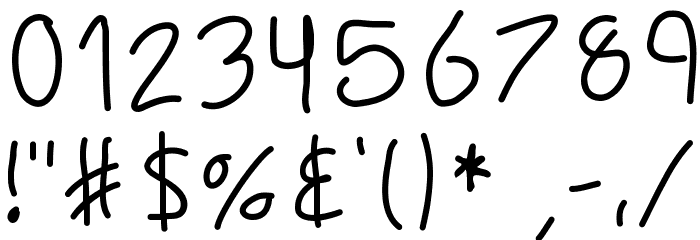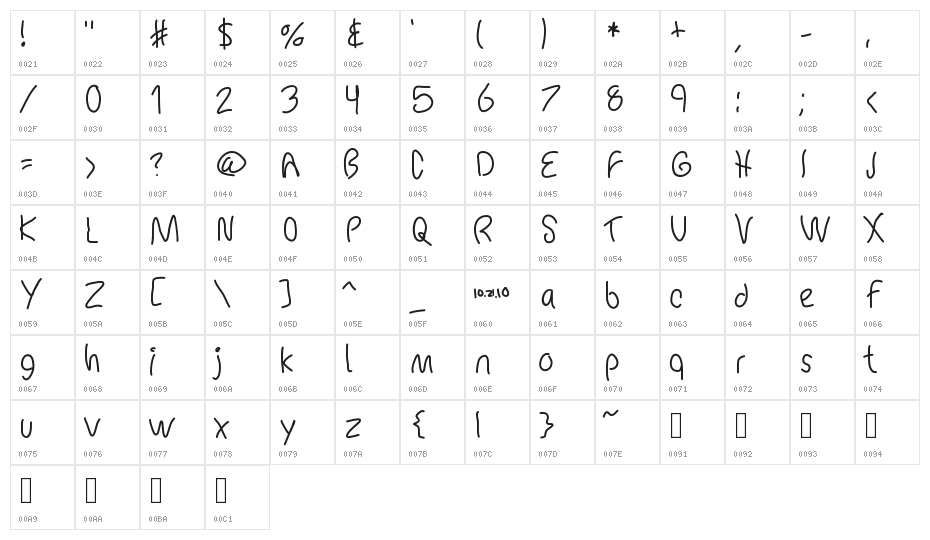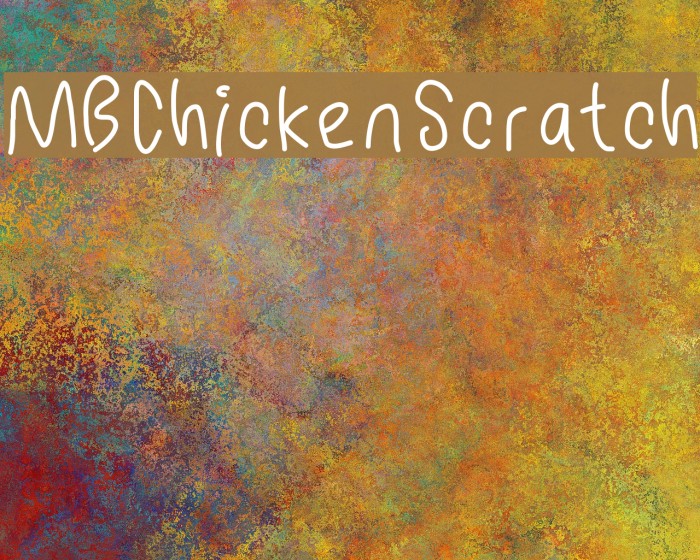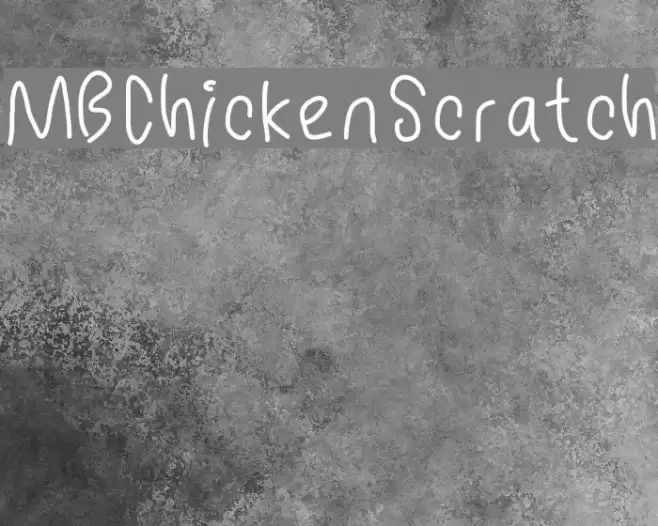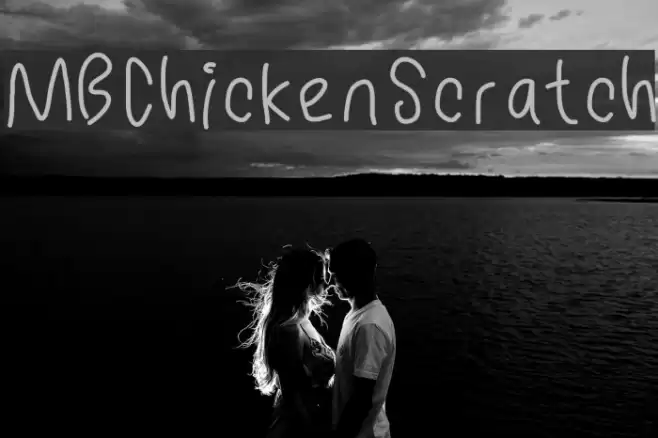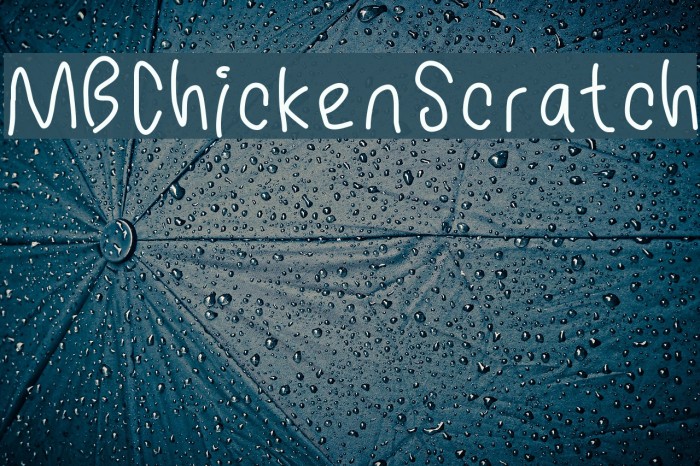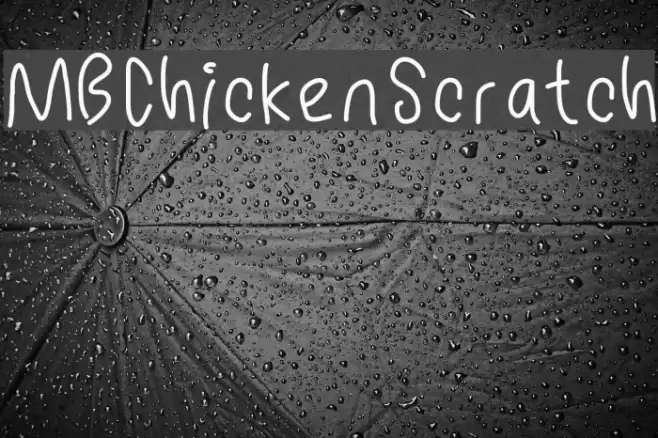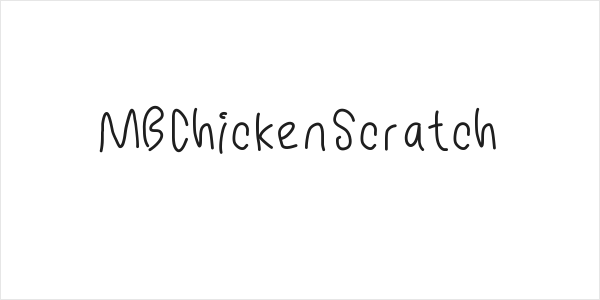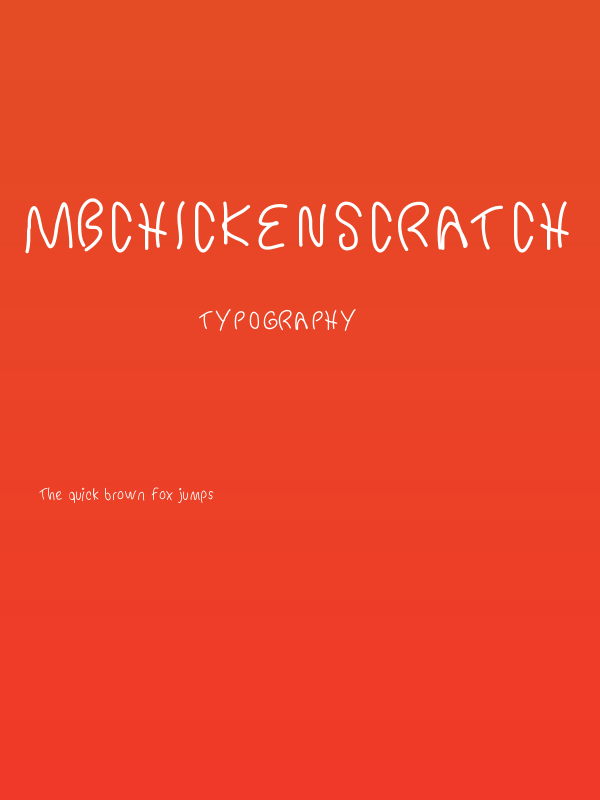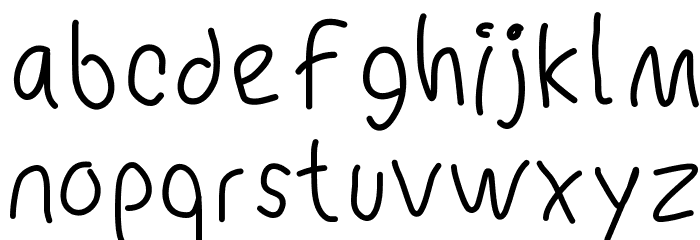
MBChickenScratch Font
MBChickenScratch Description
This font features a playful and casual handwritten style, reminiscent of quick, informal notes. The characters are slightly irregular, adding a personal touch and a sense of spontaneity. The strokes are consistent in thickness, giving it a uniform appearance despite its informal style. The letters are well-spaced, ensuring readability while maintaining the whimsical nature of the design. The numerals and special characters follow the same playful aesthetic, making it suitable for creative projects that require a personal and approachable feel.
| Proposed Projects | Ideal for greeting cards, children's books, casual invitations, and personal blogs. |